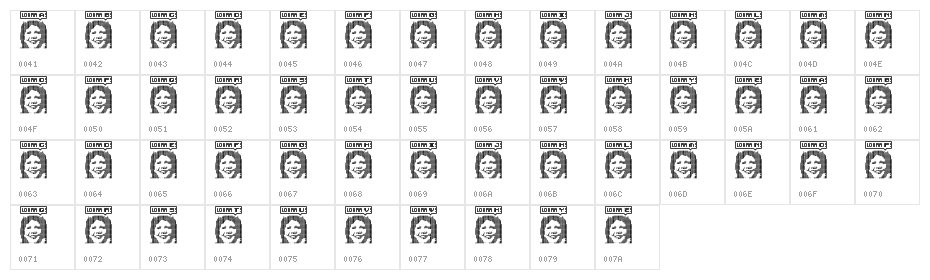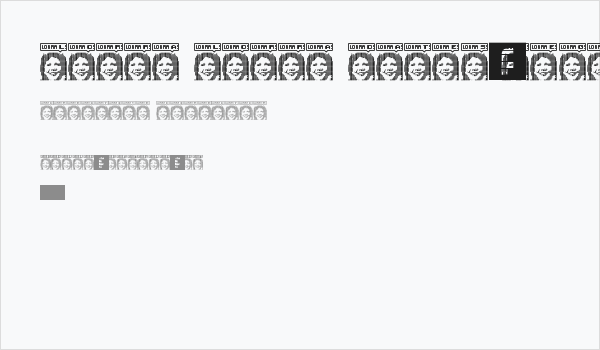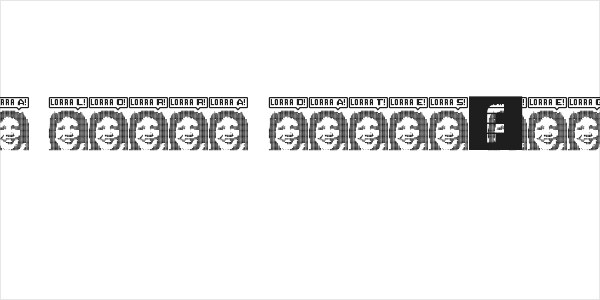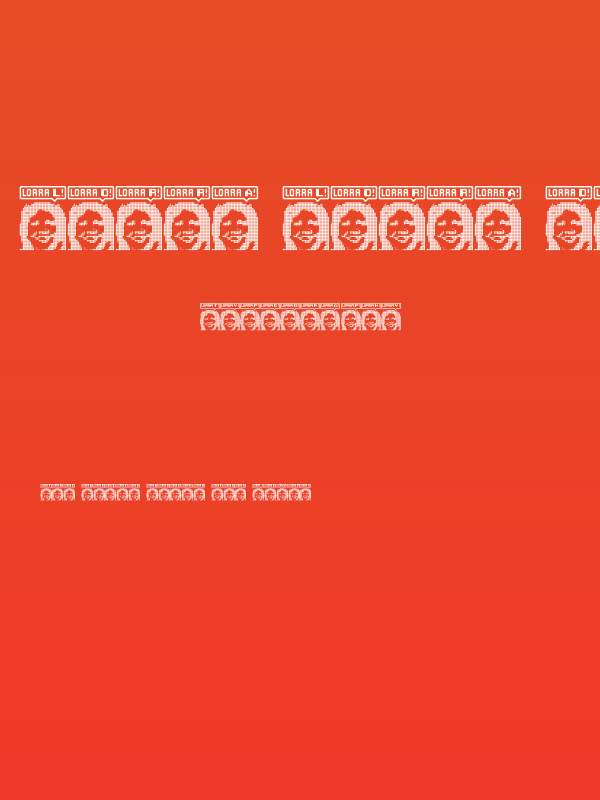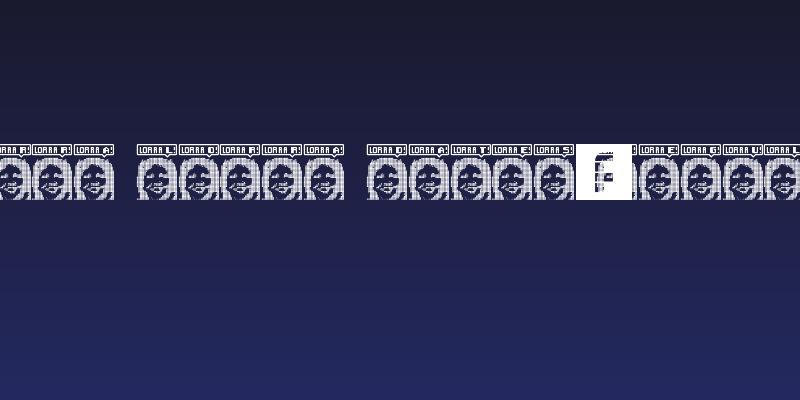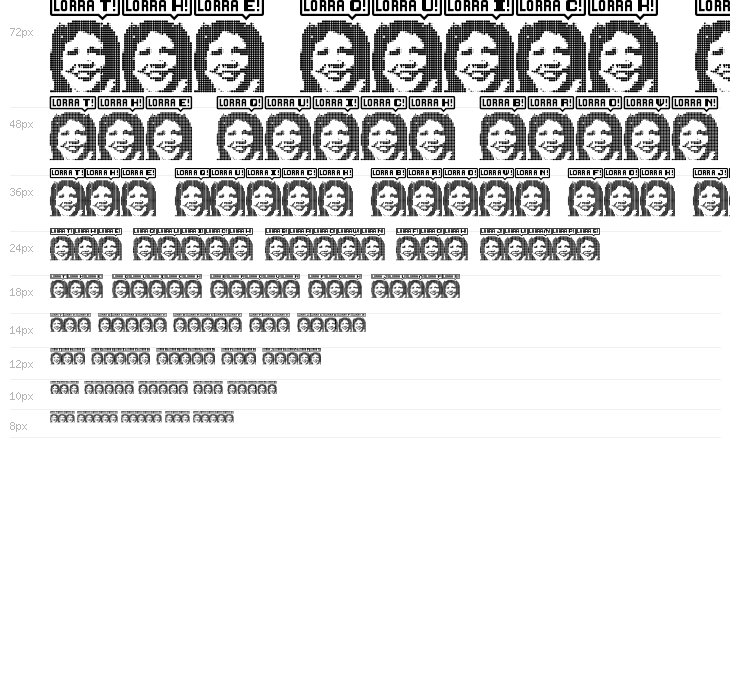
Lorra Lorra Dates! Regular Font
Lorra Lorra Dates! Regular Description
This is not a valid font. The image consists of repeated patterns of a face, labeled with text, but does not display a traditional font set. Each character position is occupied by an identical image, making it unsuitable for typical typographic use. The design appears more decorative and thematic rather than functional for text representation.
| Use Case | Artistic displays, themed decorations |
| Proposed Projects | This design could be used for decorative purposes, such as themed event graphics or artistic installations, rather than standard text applications. |